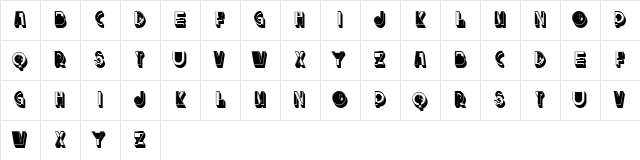
Istanbul Restaurant Regular
Design Context for Istanbul Restaurant
Istanbul Restaurant is a composed and adaptable typeface that performs quietly and consistently across a wide range of design contexts.